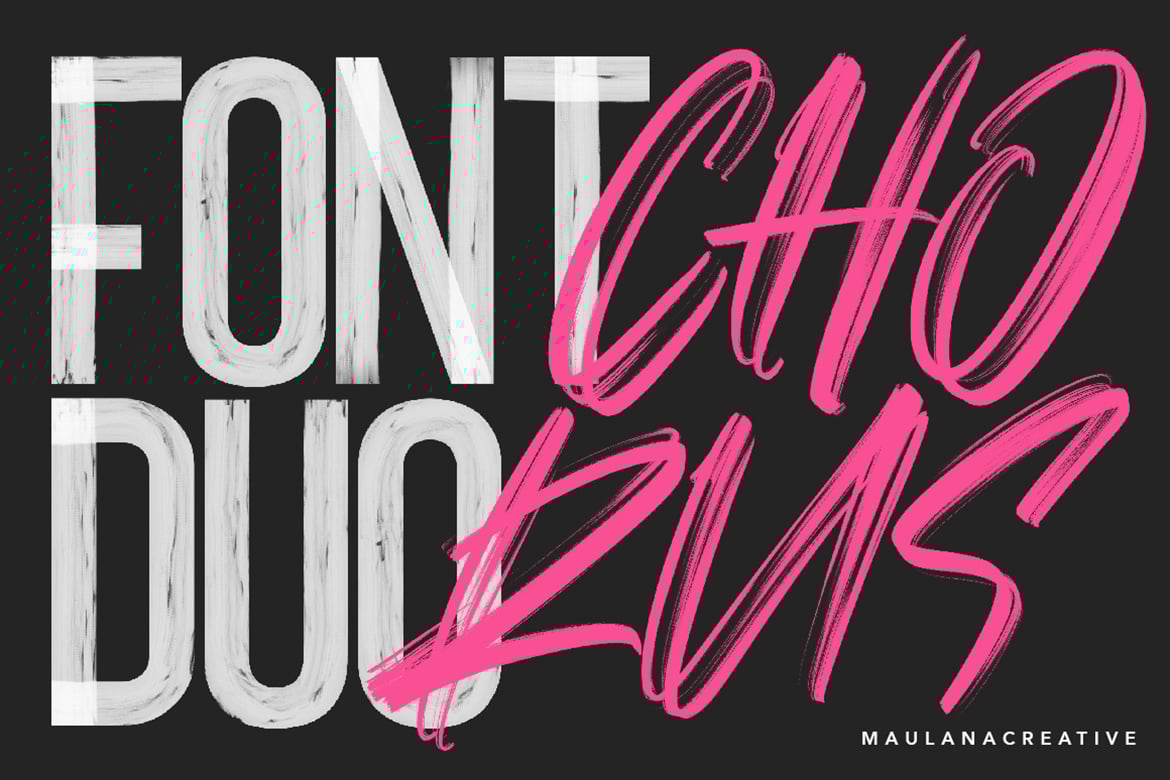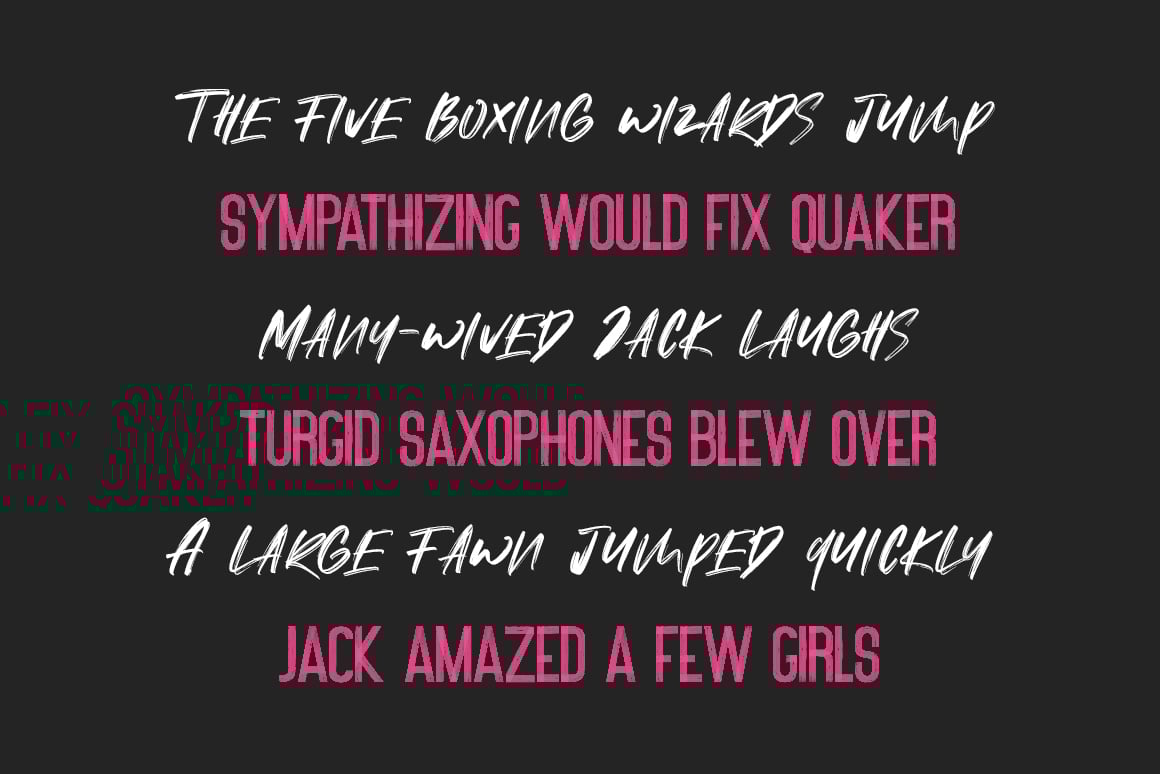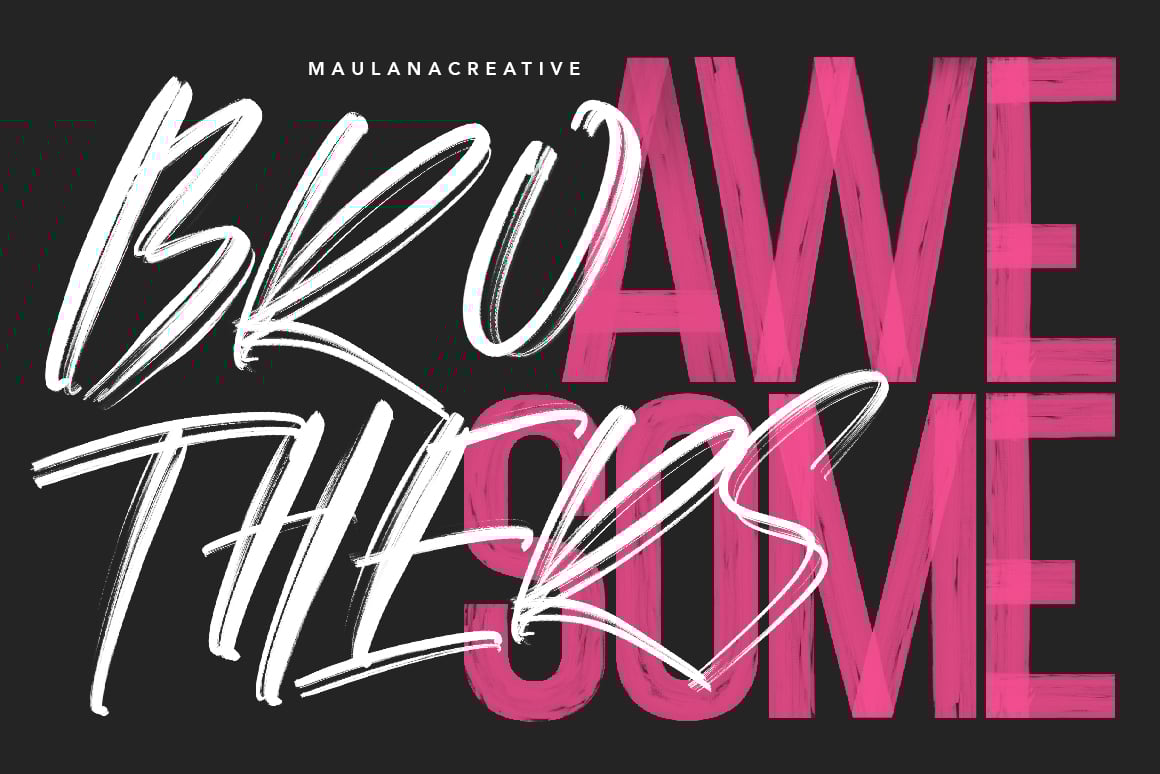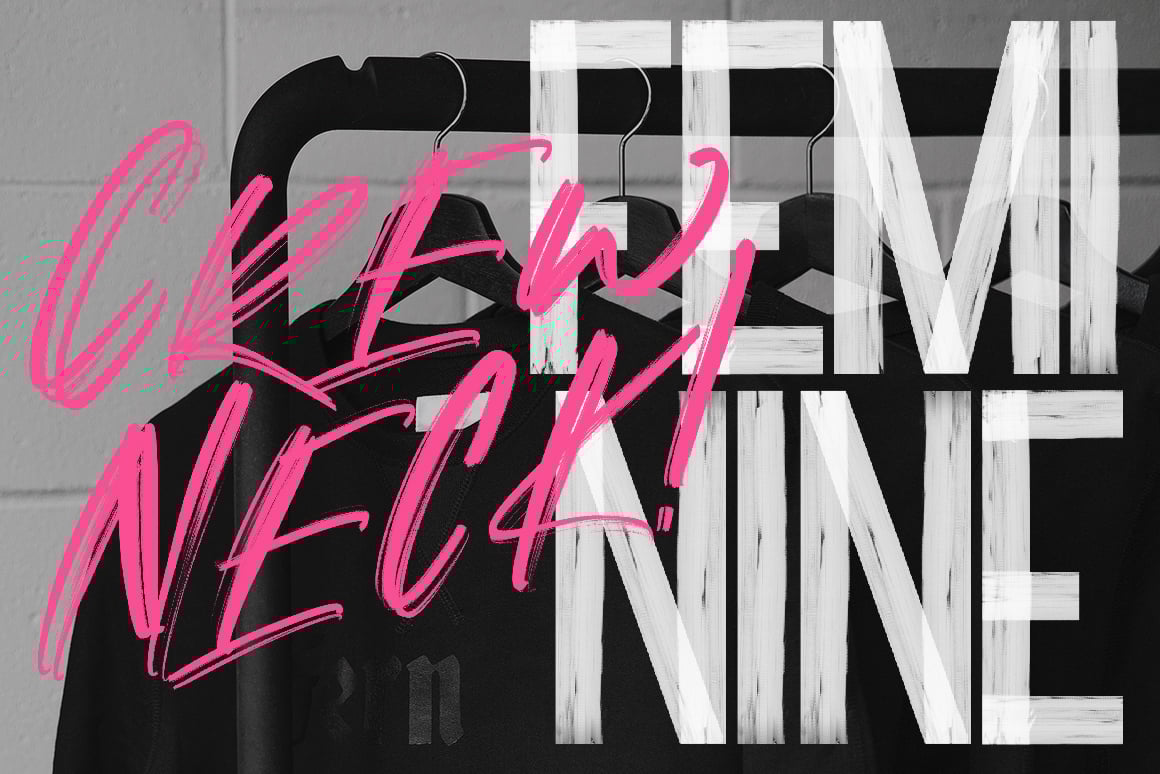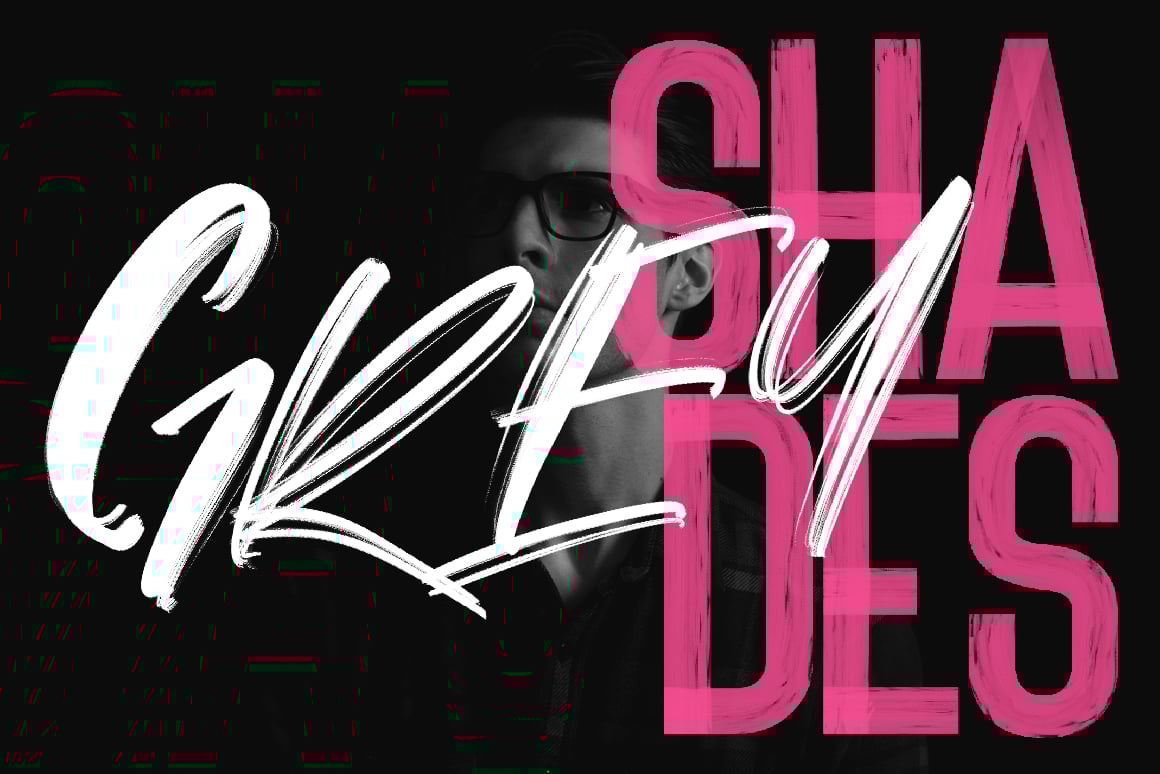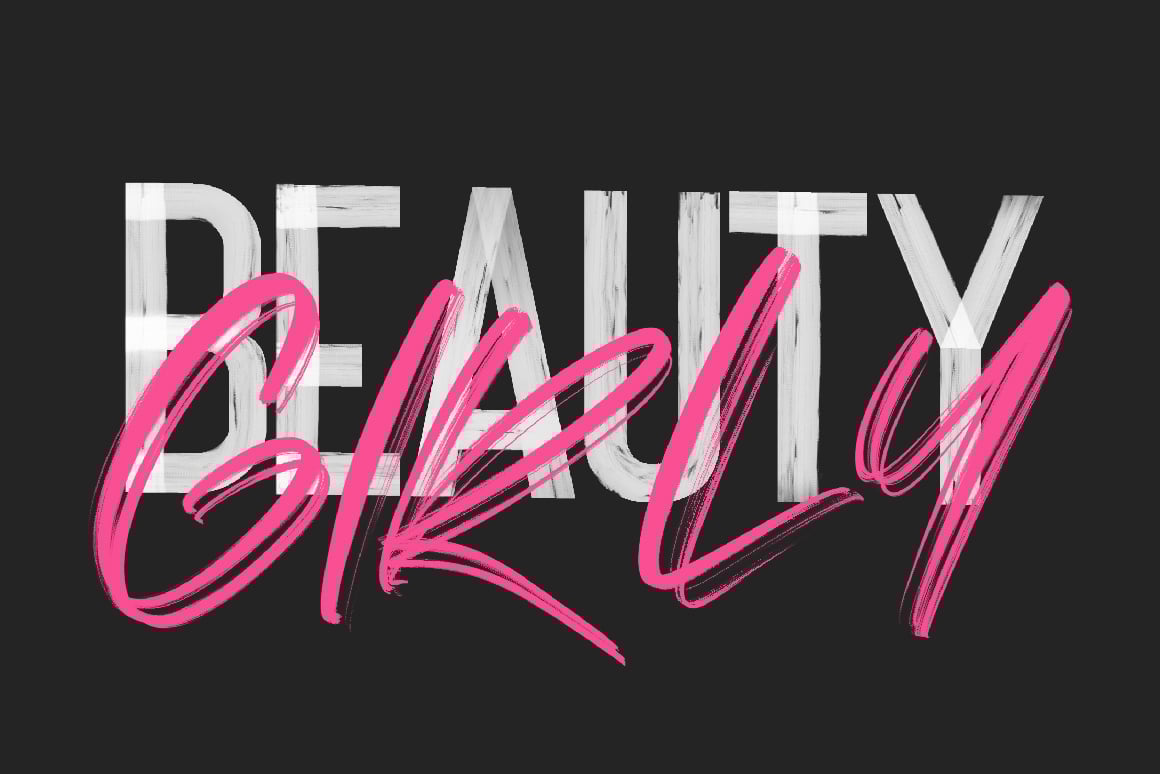
Chorus SVG Brush Font
This Chorus SVG Brush Font is perfect for artistic music branding, creative studio logos, expressive poster designs, handcrafted product packaging, artistic social media content, music festival promotions, creative workshop materials, art gallery exhibitions, musical theater branding, and dynamic creative communications.
What makes this Chorus SVG Brush Font exciting is its revolutionary SVG technology that preserves authentic brush texture with scalable vector precision. The font features expressive letterforms with natural brush strokes and artistic imperfections that create genuine handcrafted appeal while maintaining crisp digital quality. Its innovative SVG format and musical character make it ideal for creative brands seeking authentic artistic expression with modern technical excellence.
The Chorus SVG Brush Font family includes regular and bold weights with SVG texture variants, artistic alternates, and expressive ligatures. This comprehensive brush SVG font family provides designers with cutting-edge artistic tools to create authentic handcrafted typography while maintaining the technical precision essential for professional digital and print applications.
Creative agencies and music brands consistently choose Chorus SVG Brush Font Free Download for projects requiring authentic artistic expression and innovative technical quality. This font's distinctive SVG brush character perfectly captures the creative energy and artistic authenticity that resonate with audiences who appreciate genuine artistic craftsmanship combined with modern digital innovation.
The technical innovation of Chorus SVG Brush Font showcases authentic brush textures preserved in scalable vector format, ensuring consistent artistic quality across all sizes and applications. Its SVG technology maintains natural brush fiber details while providing the flexibility and precision that professional design projects require for optimal creative outcomes.
Professional designers appreciate how Chorus SVG Brush Font combines authentic artistic expression with cutting-edge SVG technology. The font's innovative nature allows creative professionals to achieve genuine handcrafted aesthetics while maintaining the technical reliability necessary for professional creative work and commercial applications.
The artistic versatility of Chorus SVG Brush Font makes it particularly effective for brands emphasizing creativity, musical expression, and artistic innovation. Its expressive character resonates strongly with audiences who appreciate authentic artistic processes combined with modern technological advancement in creative digital media.
Whether developing branding for independent musicians or creating materials for creative workshops, Chorus SVG Brush Font Free Download provides the innovative artistic foundation that creative brands need to communicate their expressive vision, artistic authenticity, and the harmonious blend of traditional craftsmanship with modern SVG technology excellence.